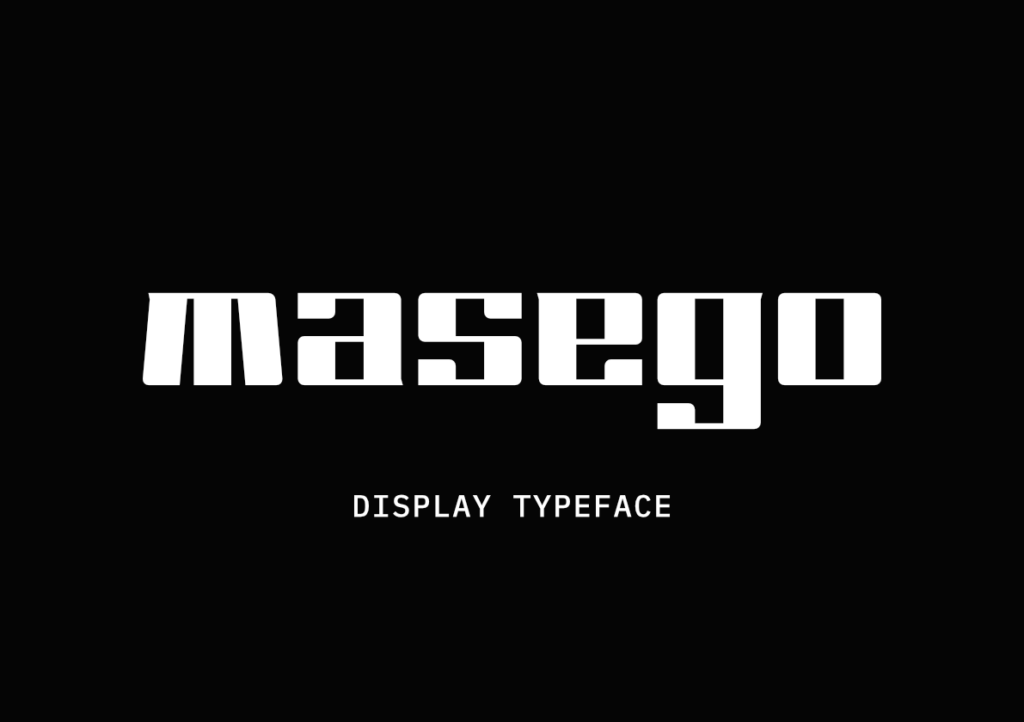
Masego is a display san-serif typeface, Masego comes in one weight and includes uppercase, lowercase, numbers + symbol & punctuation. Masego is well-suited for branding, logotypes, advertising, titles, headlines and editorial design. The typeface is free to use for personal and commercial use.